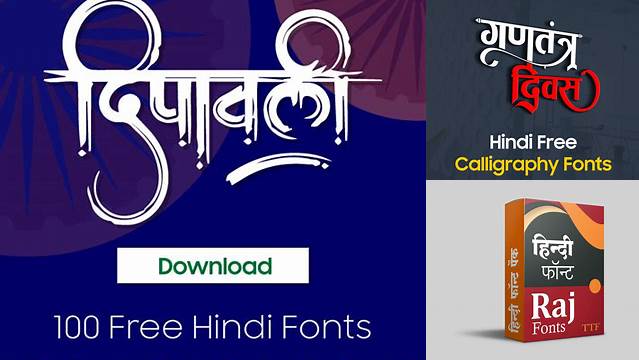
Download Free Hindi Fonts: Best Options & How To Use Them
Hey guys! If you're diving into the world of Hindi typography, you know how crucial it is to have the right fonts at your disposal. Finding the best fonts free download Hindi can be a bit of a treasure hunt, but fear not! This guide will walk you through everything you need to know, from the basics of Hindi fonts to where you can snag some amazing ones without spending a dime. We'll explore different font styles, licensing, and even how to install them. So, let's jump right in and make your projects shine with beautiful Hindi typography!
1. Understanding the Basics of Hindi Fonts
Before we get into the nitty-gritty of where to download, it’s essential to understand what makes a good Hindi font. Hindi fonts are based on the Devanagari script, which has its own unique characteristics. A good Hindi font should be legible, aesthetically pleasing, and suitable for the context of your project. This means considering factors like the font's weight, style (serif, sans-serif, etc.), and overall design. Think about how the font will look in different sizes and applications, whether it’s for a website, a poster, or a document. When you're thinking about the best fonts free download Hindi, it's really about finding something that matches the mood and message you're trying to convey.
2. Exploring Different Styles of Hindi Fonts
Just like English fonts, Hindi fonts come in a variety of styles. There are serif fonts, which have small decorative strokes at the ends of the letters, giving them a more traditional and formal look. Then there are sans-serif fonts, which are cleaner and more modern. You'll also find display fonts, which are more decorative and suitable for headlines and titles. When you’re on the hunt for the best fonts free download Hindi, consider the specific needs of your project. A sans-serif font might be great for body text on a website, while a more ornate serif font could be perfect for a wedding invitation. Understanding these distinctions will help you make the best choice.
3. Serif vs. Sans-Serif Hindi Fonts: Which is Right for You?
Choosing between serif and sans-serif fonts is a classic design dilemma. Serif fonts, with their little feet (or serifs), tend to have a more traditional and formal feel. They can be excellent for longer texts, like books or articles, as the serifs help guide the reader's eye along the line. On the other hand, sans-serif fonts are cleaner and more modern. They often work well on screens, making them a popular choice for websites and apps. When you're looking for the best fonts free download Hindi, think about where the font will be used. If it's for print, a serif font might be a good bet. If it's for digital media, sans-serif might be the way to go. But hey, there are no hard and fast rules – it all comes down to personal preference and the specific design goals of your project.
4. The Importance of Legibility in Hindi Fonts
No matter how beautiful a font is, if it's not legible, it's not going to work. Legibility is crucial, especially when dealing with a script like Devanagari, which has complex characters. When searching for the best fonts free download Hindi, prioritize fonts that are clear and easy to read. Pay attention to the spacing between letters and the overall clarity of the characters. A font might look stunning in a large headline, but if it becomes a jumbled mess at smaller sizes, it's not a practical choice. Always test out the font in different sizes and contexts to ensure it remains readable.
7. Font Licensing: What You Need to Know
Font licensing can be a bit of a headache, but it’s crucial to understand the terms before you start using a font in your projects. Most fonts come with a license that specifies how you can use them. Some fonts are free for personal use only, while others are free for both personal and commercial use. When you’re hunting for the best fonts free download Hindi, always check the license agreement. Using a font without the proper license can lead to legal trouble, so it’s better to be safe than sorry. Look for fonts with open-source licenses, as these typically offer the most flexibility.